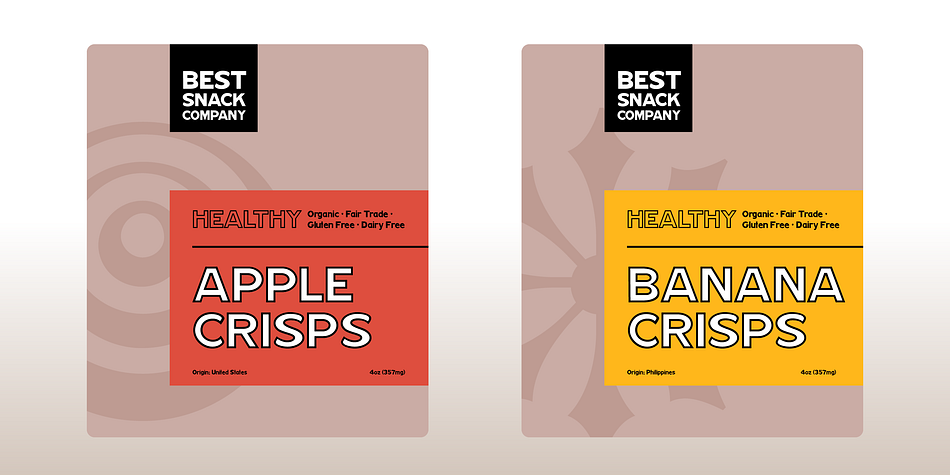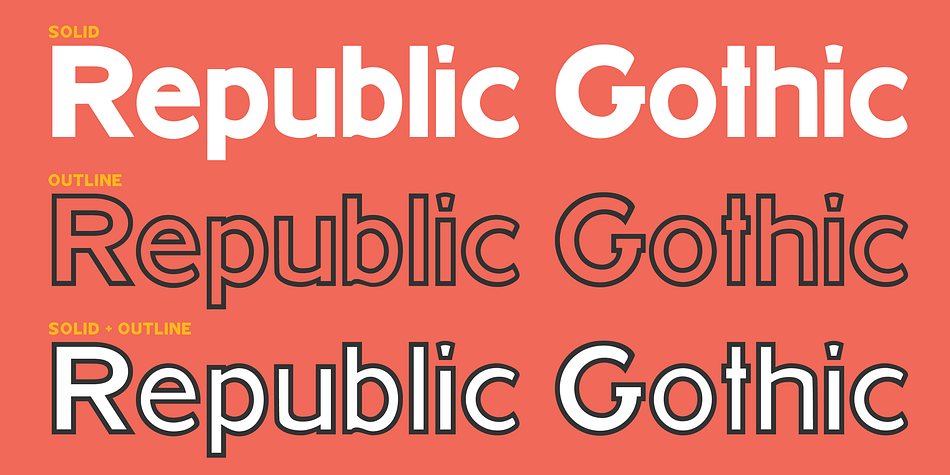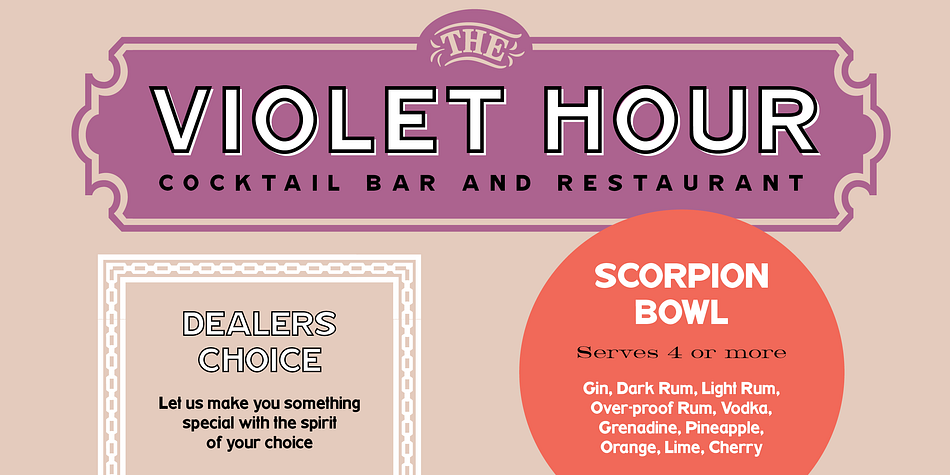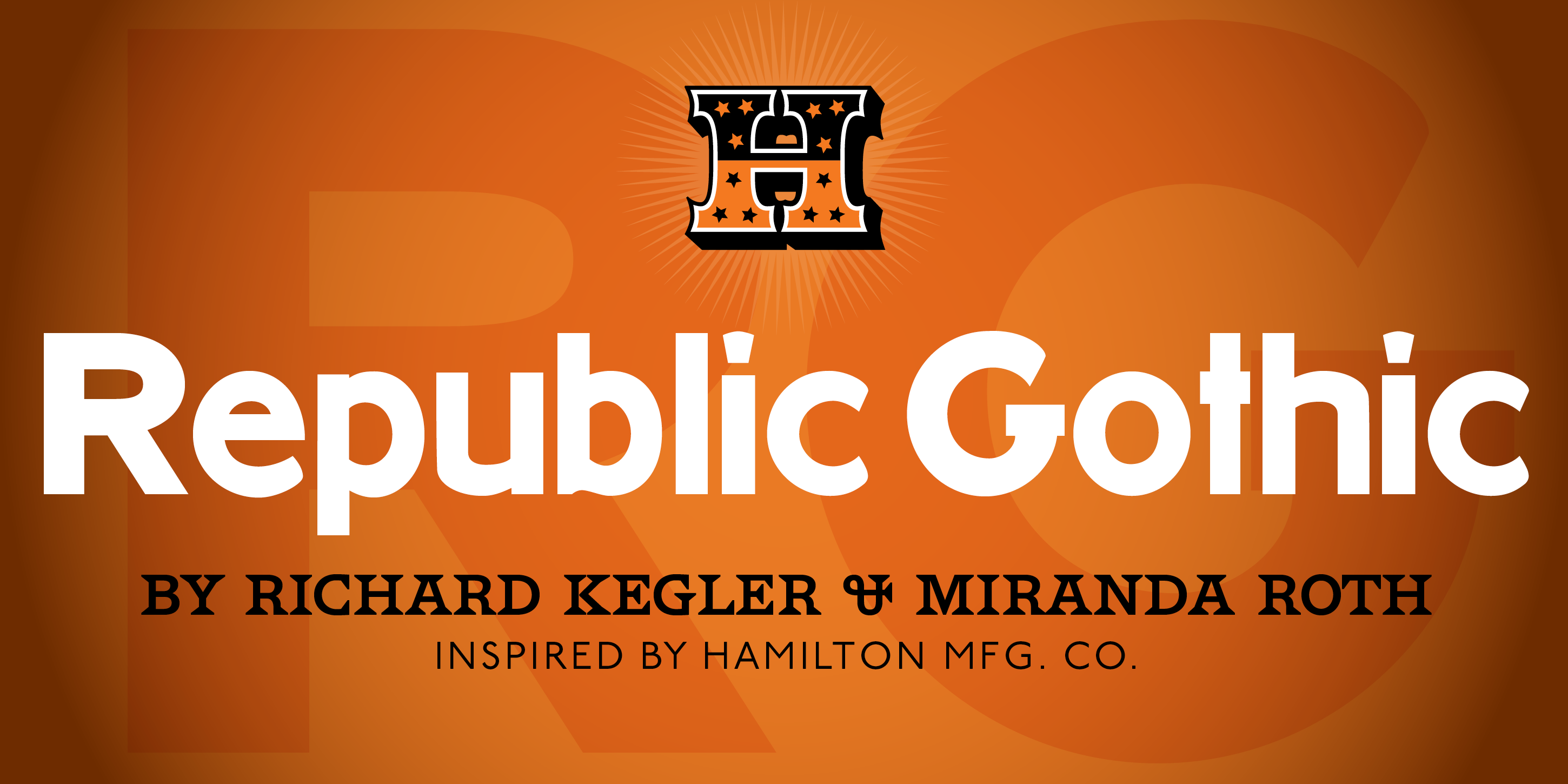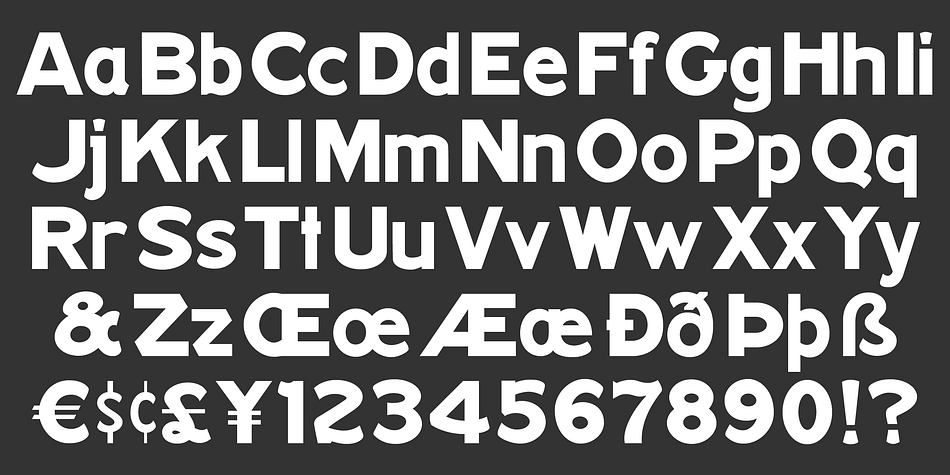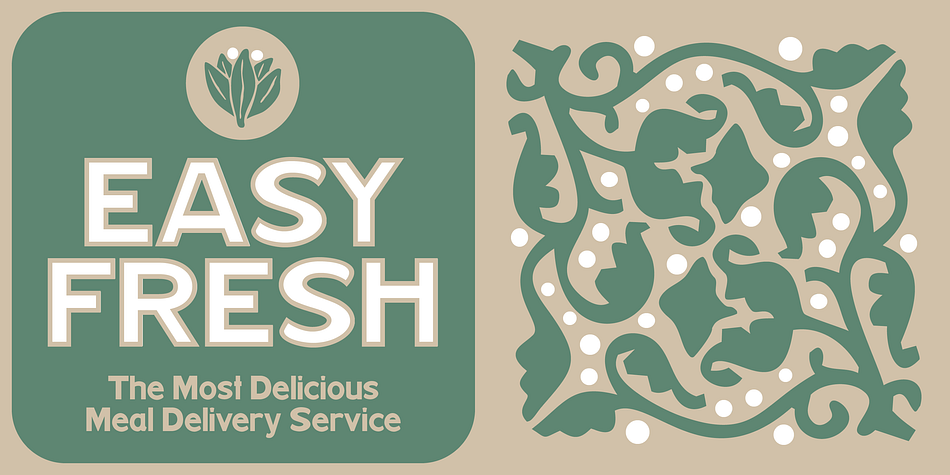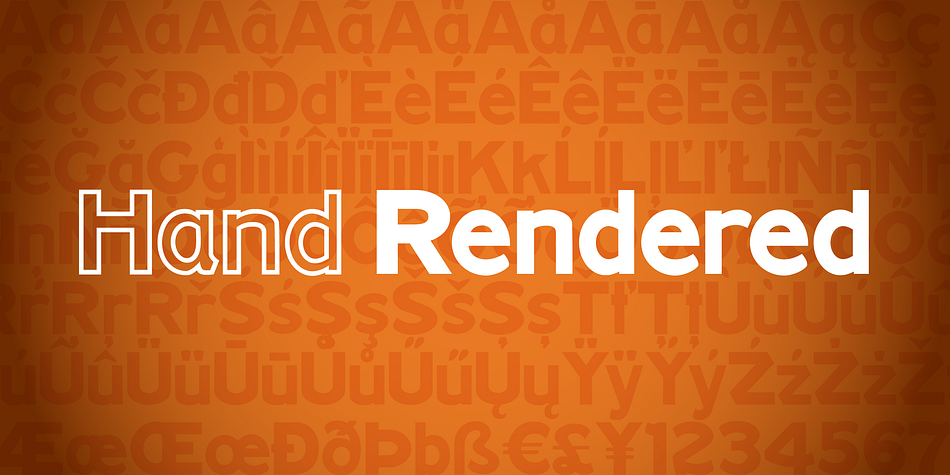
HWT Republic Gothic
Designed by Miranda Roth and Richard Kegler, HWT Republic Gothic is a sans serif font family. This typeface has two styles and was published by Hamilton Wood Type.
The Republic Gothic series was among the last original wood type designs manufactured by Hamilton Manufacturing Co. It was first shown in Hamilton’s New Gothic Faces in Wood Type (c. 1920). The design features a sans-serif style reminiscent of brush-formed letters popular with sign painters of the era.
Originally issued in 6 different widths and in both outline and solid versions, this digital release features the “Extended” width known as Hamilton Republic Gothic series 775 & 776. The pair of outline and solid is designed as ‘chromatics’ that can be printed one over the other to achieve multiple color effects or individually as stylistic alternatives. This release features the first ever digitization of Republic Gothic. The two fonts are carefully aligned and kerned to allow for multicolor overlayment in any digital design program. It features a full Western and Central European Character set.
Foundry Hamilton Wood Type
Designers Miranda Roth, Richard Kegler